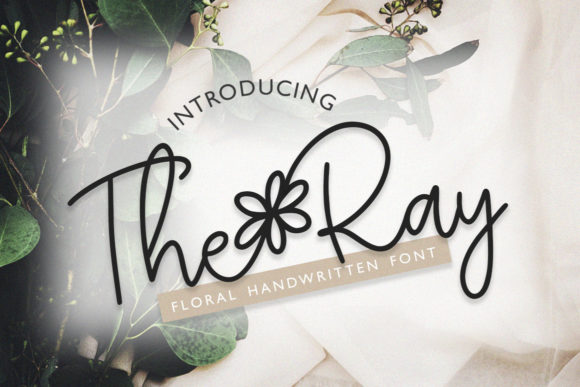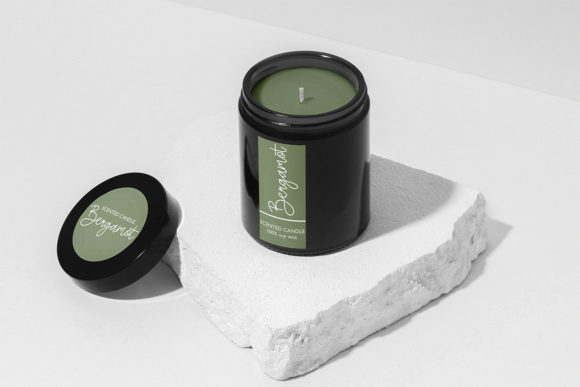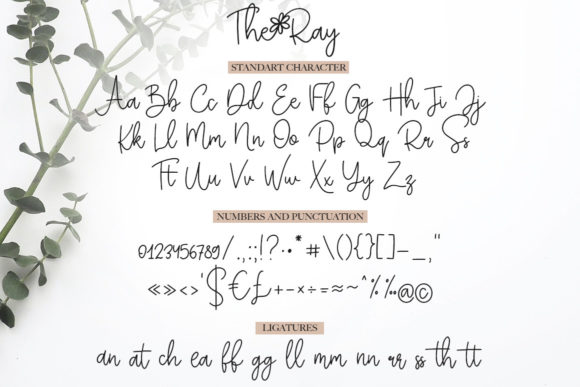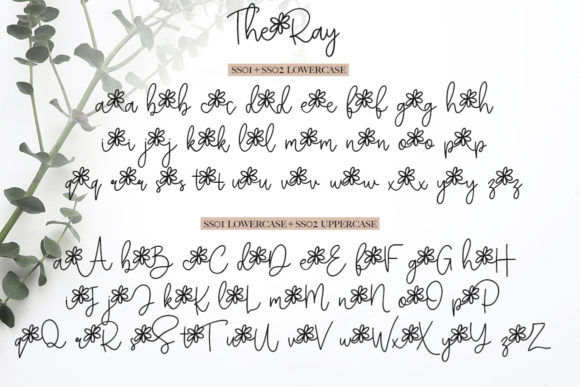
About The Ray Font
The Ray is a cute and floral handwritten font. Its cursive and stylish sets allow you to instantly create beautifully handcrafted typography. Whatever the topic, this font will be a wonderful asset to your font library!